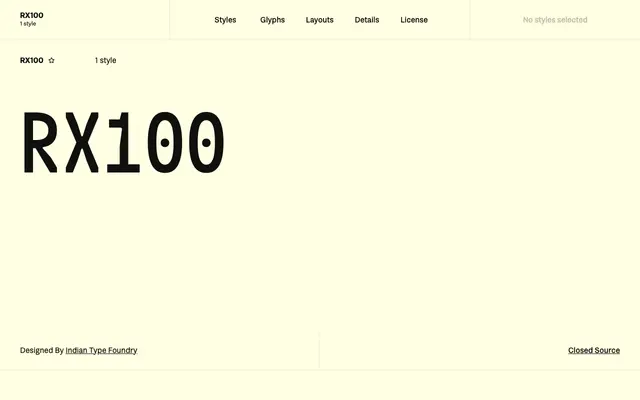
RX100
A condensed monospaced sans serif from Indian Type Foundry with tall ascenders, large ink traps and 22 OpenType alternates, suited to code rendering and typewritten aesthetics.
Released on Fontshare in March 2021, RX100 takes the fixed-width format and pushes it towards an unusually narrow proportion, giving capital letters a particularly compressed appearance in mixed-case settings. Tall ascenders clear the capitals decisively, and oversized diacritical marks aid character recognition at small sizes, making it practical for programming environments. Large ink traps maintain even colour in small text, while 22 alternate glyphs and 10 arrow characters offer compositional flexibility.
RX100 is explicitly described as a monospaced sans serif; its fixed-width letterforms, condensed proportions and ink traps are characteristic of a monospaced typeface designed for code and typewritten aesthetics.